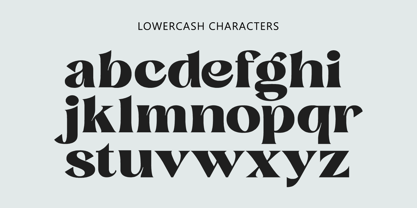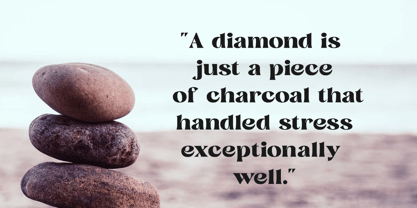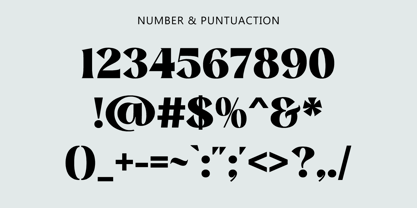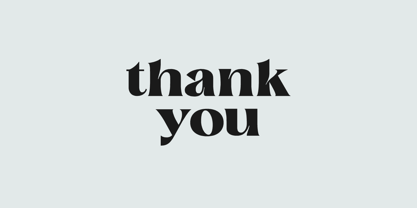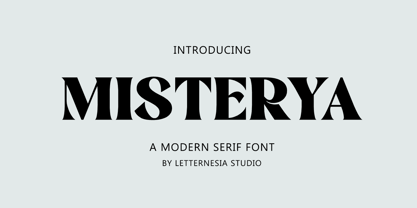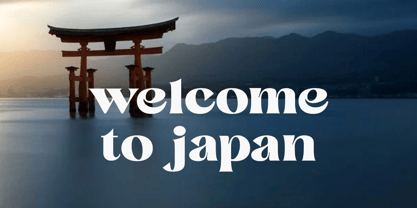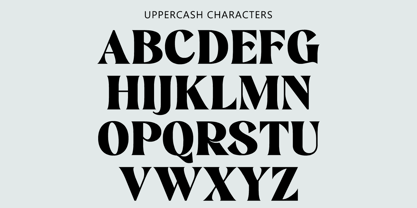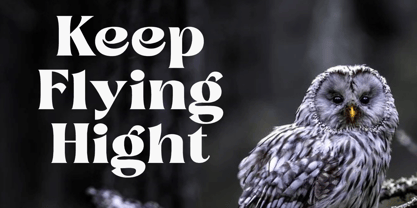
Misterya
by Letternesia studio
The Misterya Font Family was designed by Ta Siyo and published by Letternesia studio. Misterya contains 1 styles.
"Misterya is an elegant serif font that combines timeless sophistication with a touch of contemporary flair.
Its well-defined, graceful serifs and carefully crafted letterforms give it a classic yet modern appeal.
Perfect for high-end branding, editorial design, or any project that requires a refined, distinctive look, Misterya offers both readability and a sense of artistic charm.
Whether used in headlines or body text, its versatile design ensures that it will make a strong visual statement."
About Letternesia studio
Letternesia is a company engaged in the creation and development of fonts, focusing on unique designs that highlight the distinct characteristics of Indonesia. Established with the goal of promoting and introducing Indonesian culture through typography, Letternesia offers a variety of fonts inspired by the beauty of the archipelago. Each font produced by Letternesia is crafted with high detail and precision, making it suitable for various needs, from graphic design and branding to other creative projects.